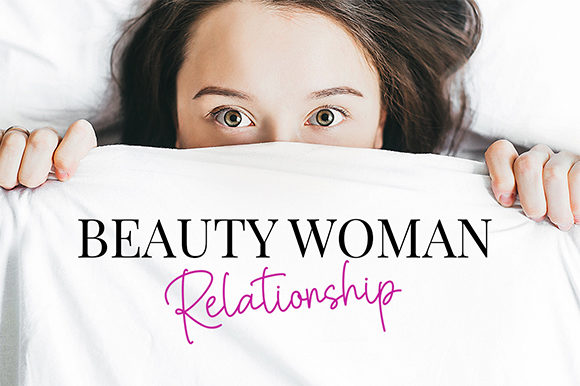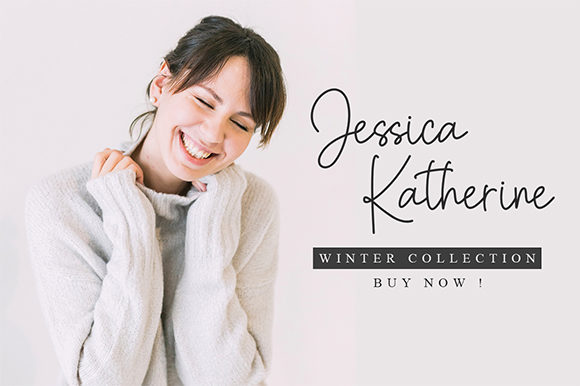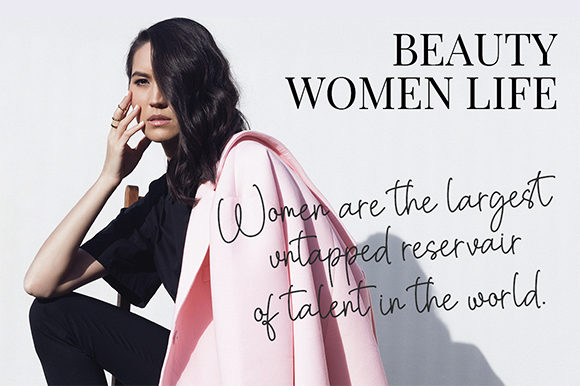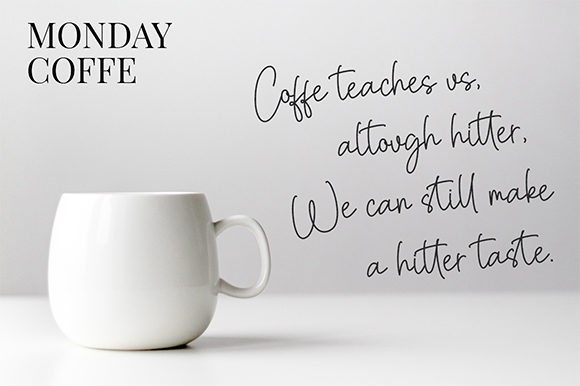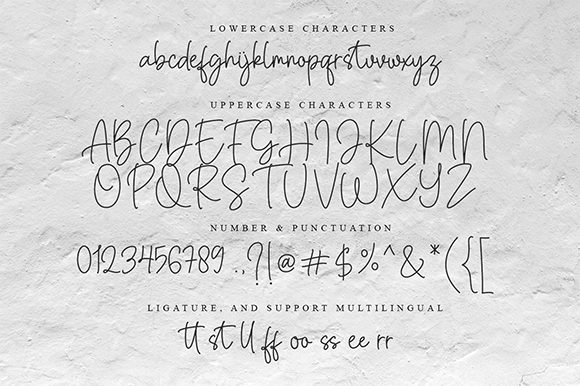
Introduction to Margareth Script Font
Margareth is a gorgeous and light script font that radiates authenticity.
It will add that personal feel to a wide variety of design ideas .
Key Features of Margareth Script Font
Why Choose Margareth Script Font?